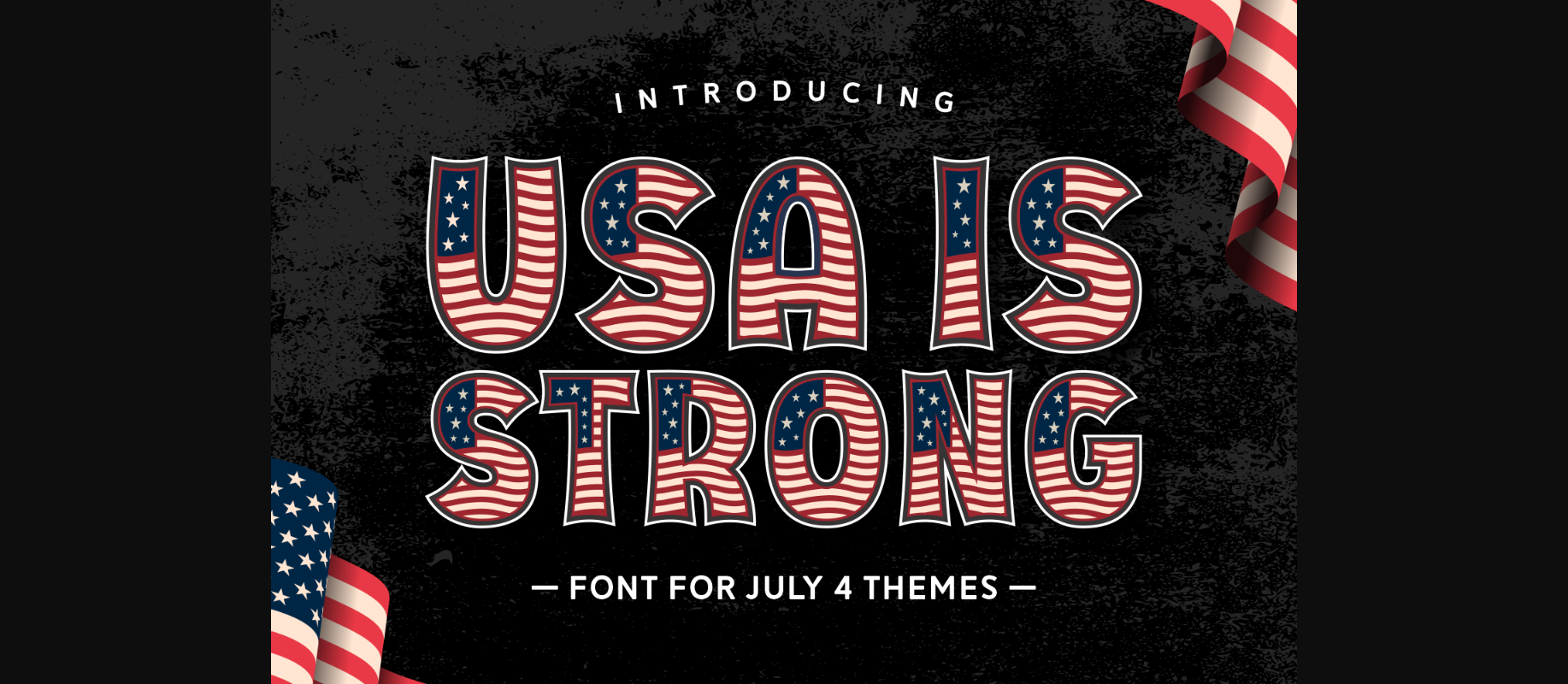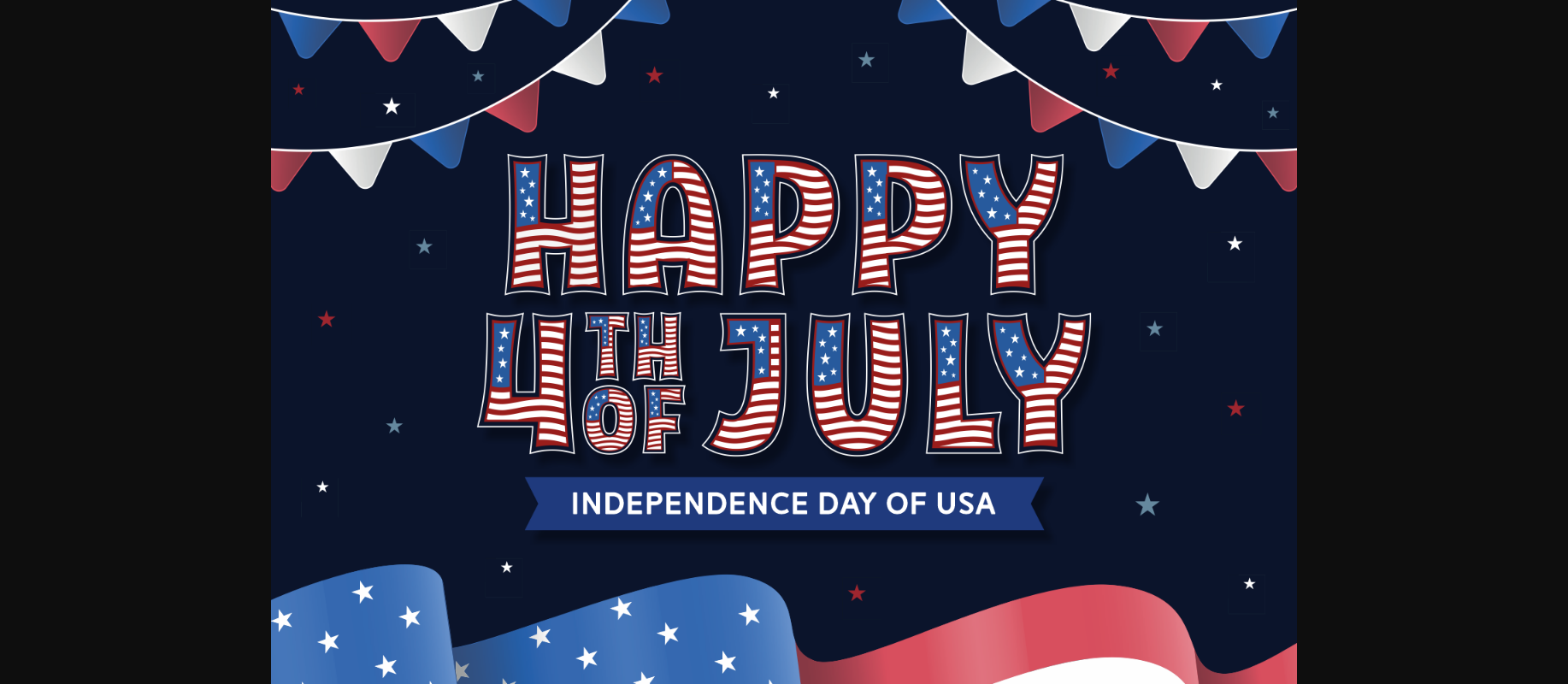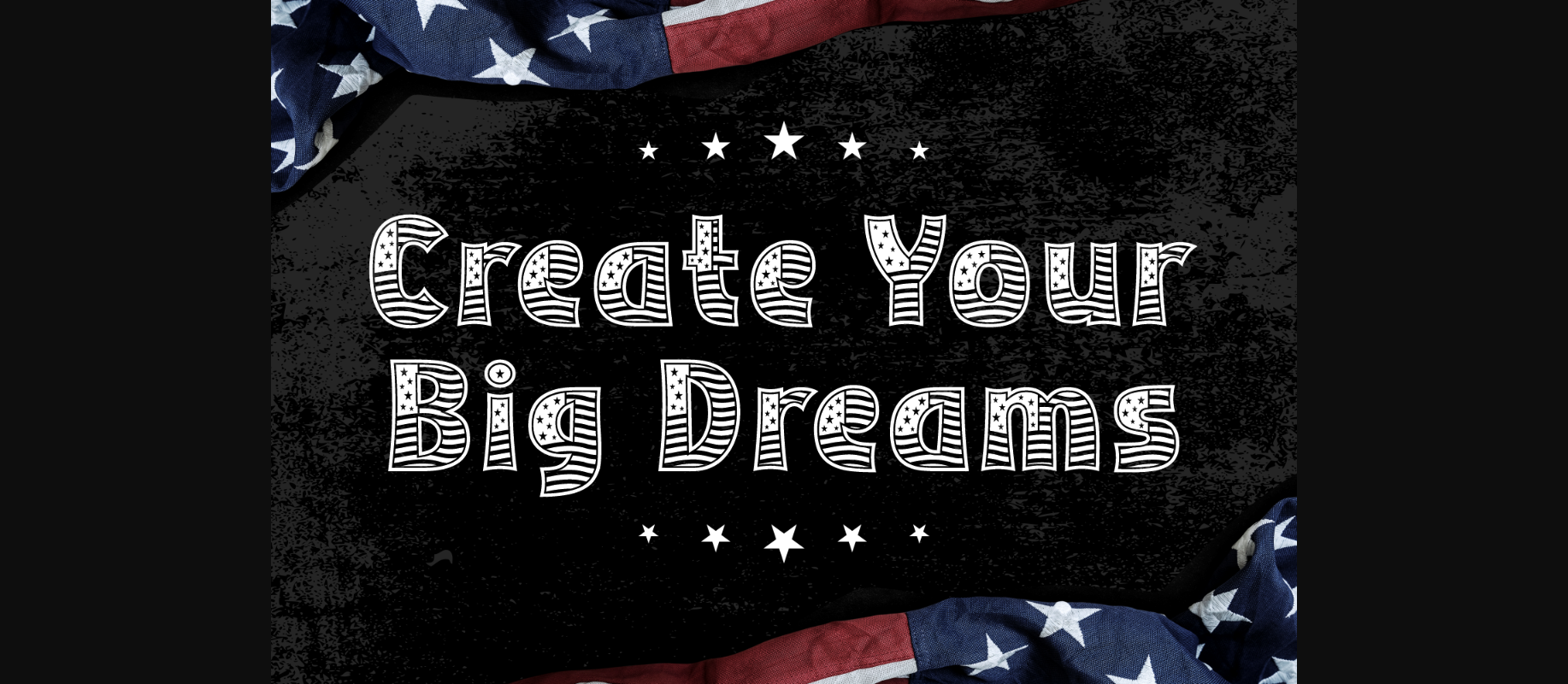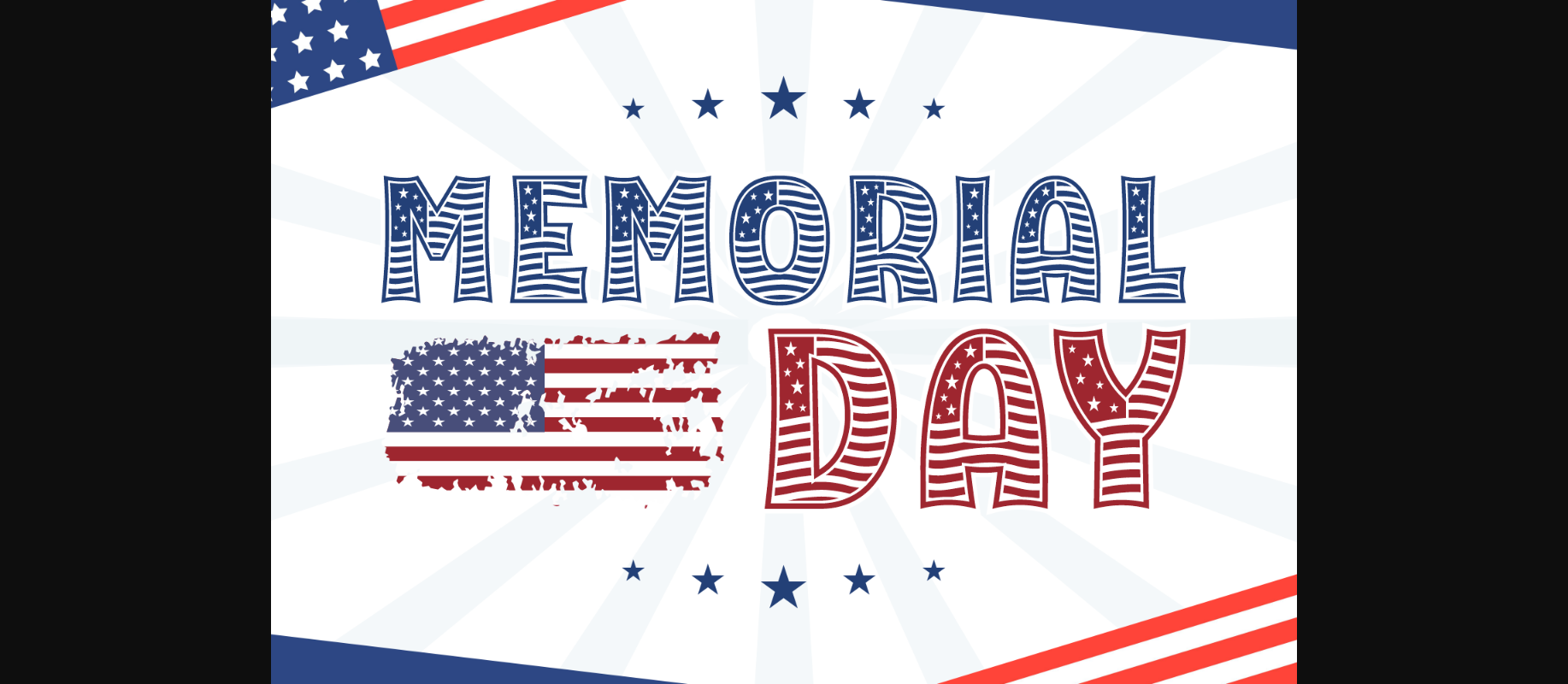
About Usa is Strong Font
The decorative font features an American flag motif that beautifully incorporates the iconic stars and stripes into the design of each letter. Each character is intricately crafted to evoke the patriotic spirit and symbolize the rich heritage and values associated with the United States.
This decorative font is perfect for projects that celebrate American culture, history, or events such as Independence Day, Veterans Day, or Memorial Day. It can be used to create impactful headlines, banners, or signage, infusing a sense of national pride and identity into any design.
The American flag decorative font captures the essence of patriotism, freedom, and unity. Its distinctive design serves as a visual reminder of the ideals and values that the American flag represents, making it an excellent choice for adding a touch of national pride and identity to various design projects.
This decorative font is perfect for projects that celebrate American culture, history, or events such as Independence Day, Veterans Day, or Memorial Day. It can be used to create impactful headlines, banners, or signage, infusing a sense of national pride and identity into any design.
The American flag decorative font captures the essence of patriotism, freedom, and unity. Its distinctive design serves as a visual reminder of the ideals and values that the American flag represents, making it an excellent choice for adding a touch of national pride and identity to various design projects.